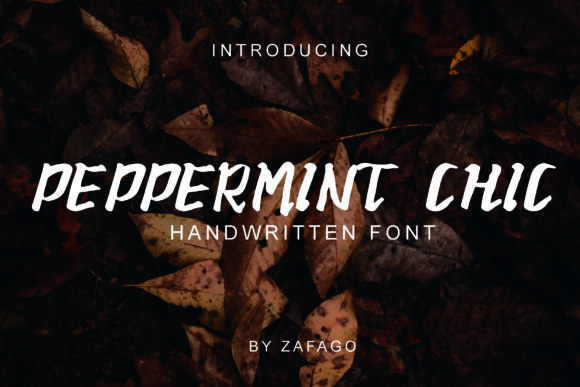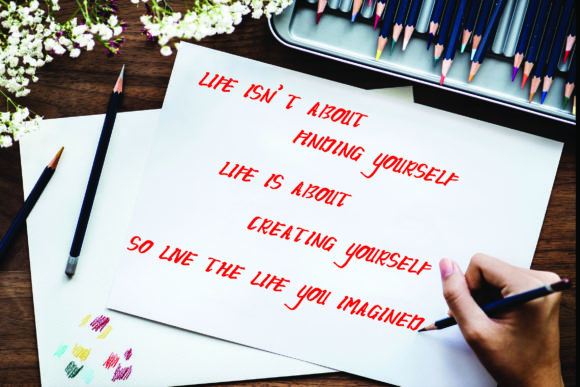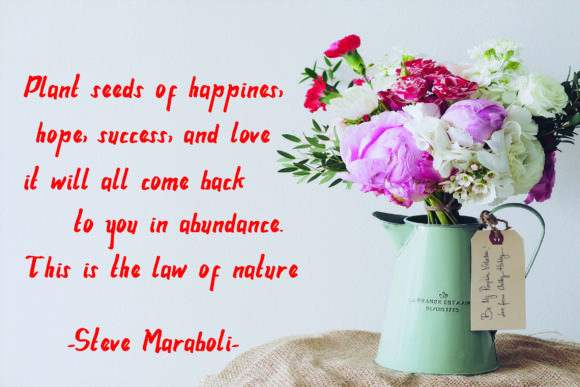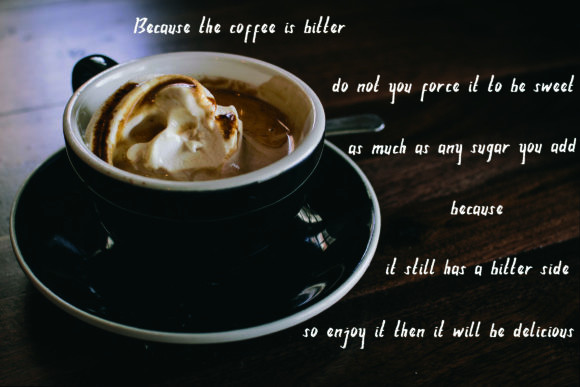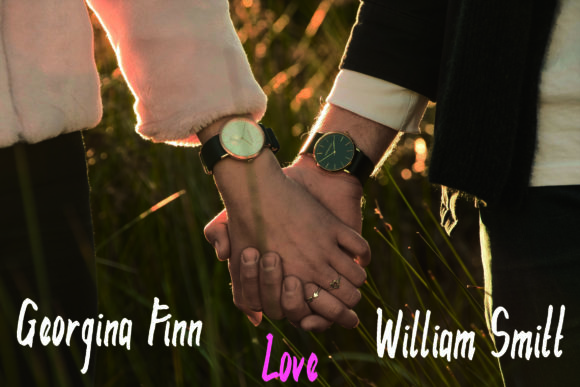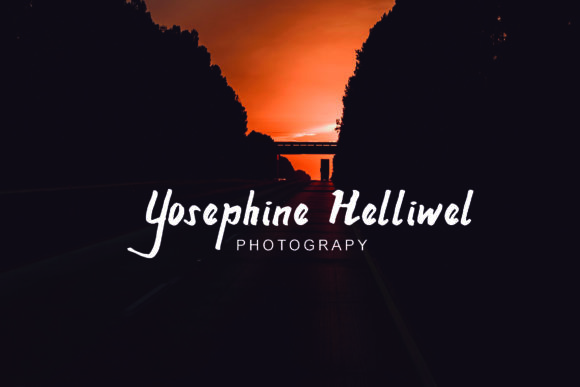
Peppermint Chic Font
About Peppermint Chic Font
The Peppermint Chic is a modern handwritten font. It’s perfect for making a statement and to make beautiful typography designs.